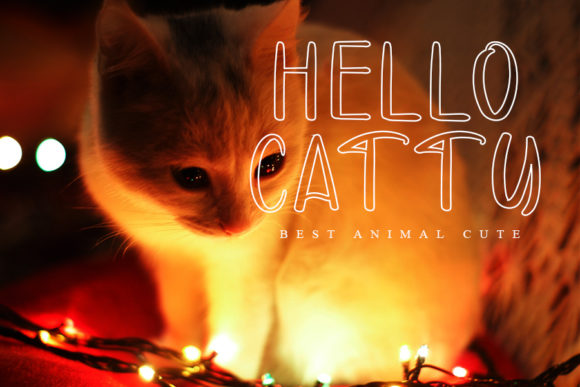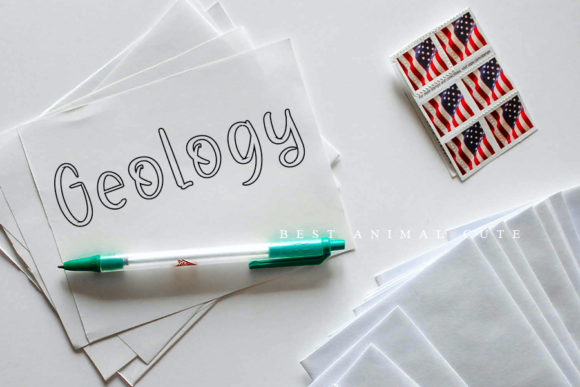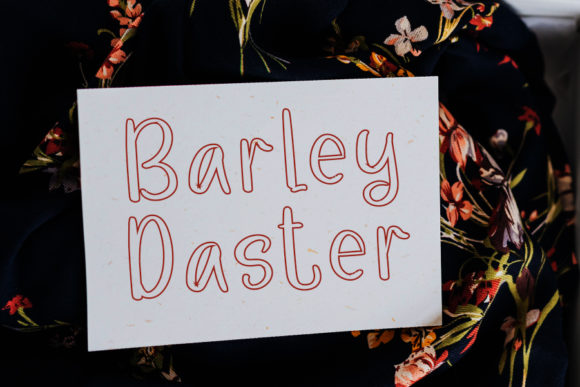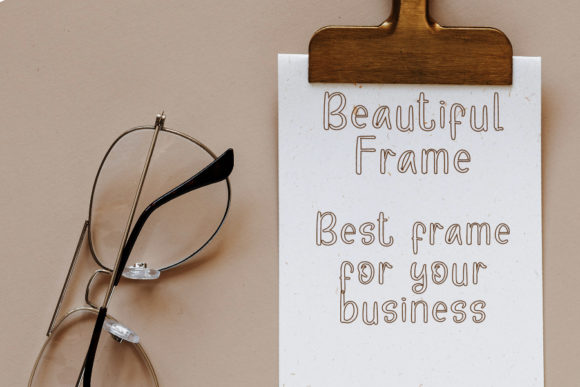
Dreaming Font: The Perfect Playful and Magical Handwritten Font for Your Creative Projects
Are you a designer, crafter, or DIY enthusiast looking for a font that can add a touch of magic and playfulness to your projects? Look no further than the Dreaming Font! This beautiful handwritten font is perfect for a wide range of creative endeavors, from logos and branding to social media graphics and crafty DIY projects.
What is Dreaming Font?
Dreaming Font is a carefully crafted handwritten font that exudes a sense of whimsy and wonder. Its playful and magical personality makes it an ideal choice for anyone looking to add a touch of personality to their designs. Whether you’re creating a logo, social media graphic, or crafty DIY project, Dreaming Font is sure to make your work stand out.
Key Features of Dreaming Font
- Playful and Magical Personality: Dreaming Font has a unique and captivating personality that is sure to capture the attention of your audience.
- Handwritten Style: This font features a beautiful handwritten style that adds a personal touch to your designs.
- Versatile: Dreaming Font is perfect for a wide range of creative projects, from logos and branding to social media graphics and crafty DIY projects.
- Easily Readable: Despite its playful nature, Dreaming Font is easily readable, making it perfect for use in a variety of contexts.
Uses for Dreaming Font
Dreaming Font is an incredibly versatile font that can be used in a wide range of creative projects. Here are just a few ideas to get you started:
- Logos and Branding: Use Dreaming Font to create a unique and memorable logo for your business or brand.
- Social Media Graphics: Add a touch of personality to your social media graphics with Dreaming Font.
- Crafty DIY Projects: Use Dreaming Font to add a personal touch to your crafty DIY projects, such as handmade cards, gift tags, and more.
- Stationery and Invitations: Dreaming Font is perfect for use in stationery and invitations, adding a touch of whimsy and wonder to your correspondence.
Tips for Using Dreaming Font
Here are a few tips for getting the most out of Dreaming Font:
- Use it Sparingly: While Dreaming Font is a beautiful font, it can be overwhelming if used too much. Use it sparingly to add a touch of personality to your designs.
- Experiment with Colors: Dreaming Font looks great in a variety of colors, so don’t be afraid to experiment and find the perfect hue for your project.
- Pair it with Other Fonts: Dreaming Font pairs well with a variety of other fonts, so try pairing it with a bold font for a striking contrast.
In conclusion, Dreaming Font is a beautiful and versatile handwritten font that is perfect for a wide range of creative projects. Its playful and magical personality makes it an ideal choice for designers, crafters, and DIY enthusiasts looking to add a touch of personality to their work. With its easily readable style and endless uses, Dreaming Font is sure to become a favorite in your font collection.